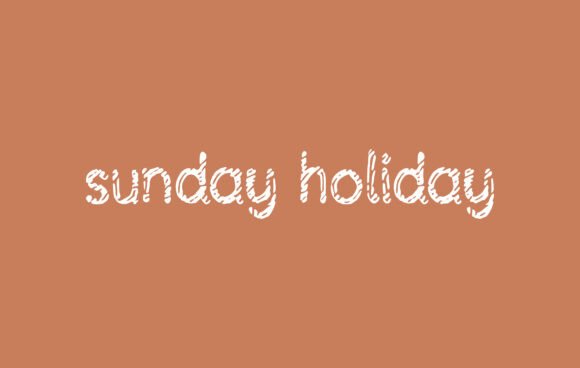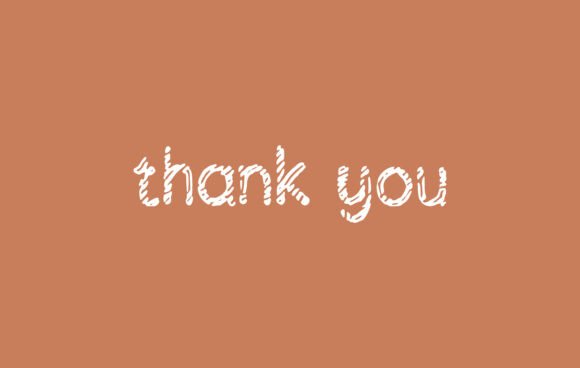
Introducing Glam Font: Elevate Your Designs with Elegance and Sophistication
In the world of typography, a well-crafted font can make all the difference in elevating your designs to new heights. For designers and crafters seeking to add a touch of romance and glamour to their projects, Glam Font is an exceptional choice. This authentic handwritten font is expertly designed to capture the essence of elegance and sophistication, making it a true favorite among creative enthusiasts.
The Charm of Glam Font
Glam Font boasts a unique, romantic touch that sets it apart from other fonts. Its authentic handwritten style exudes warmth and personality, making it perfect for a wide range of design applications. Whether you’re working on magazine headlines, social media graphics, branding materials, wedding invitations, or cards, Glam Font is sure to leave a lasting impression.
Versatility and Legibility
One of the standout features of Glam Font is its exceptional legibility. This font is designed to look great not only as a title but also as body text, making it incredibly versatile. Its clear and readable design ensures that your message is conveyed effectively, whether you’re using it for headings or paragraphs. This versatility makes Glam Font an excellent addition to any designer’s toolkit.
Design Applications
The possibilities are endless when it comes to using Glam Font in your designs. Here are a few ideas to get you started:
- Magazine Headlines: Add a touch of glamour to your magazine covers with Glam Font. Its elegant style is sure to grab attention and draw readers in.
- Social Media Graphics: Elevate your social media presence with eye-catching graphics featuring Glam Font. Perfect for creating engaging posts, stories, and ads.
- Branding: Establish your brand’s identity with a unique and memorable font. Glam Font can help you create a cohesive and sophisticated visual brand.
- Wedding Invitations: Make your wedding invitations truly special with Glam Font. Its romantic style is perfect for conveying the joy and elegance of your special day.
- Cards and Stationery: Add a personal touch to your cards, letters, and stationery with Glam Font. Its beautiful design is sure to make your correspondence stand out.
Why Choose Glam Font?
With so many fonts available, why choose Glam Font? Here are a few compelling reasons:
- Unique Style: Glam Font offers a distinctive, handmade look that will set your designs apart from the crowd.
- Ease of Use: This font is incredibly easy to use, even for those new to design. Its clear and legible style makes it perfect for a wide range of applications.
- High-Quality Design: Glam Font is expertly crafted to ensure that it looks great in any design. Its high-quality design makes it perfect for both digital and print applications.
In conclusion, Glam Font is an exceptional choice for designers and crafters seeking to add a touch of elegance and sophistication to their projects. Its unique, romantic style, versatility, and legibility make it perfect for a wide range of design applications. Whether you’re working on magazine headlines, social media graphics, branding materials, wedding invitations, or cards, Glam Font is sure to elevate your designs to new heights. So why wait? Discover the glamour of Glam Font today and take your creative ideas to the highest level.